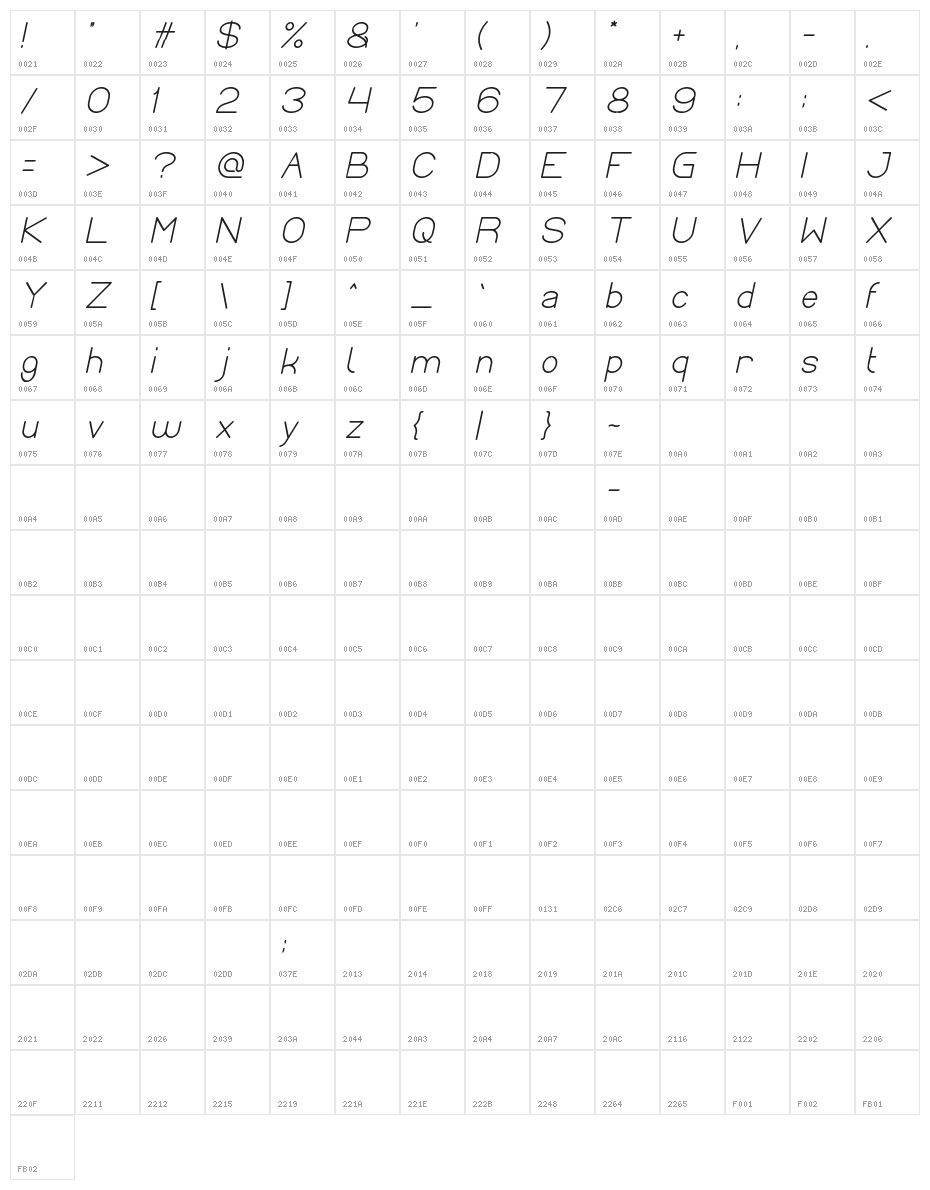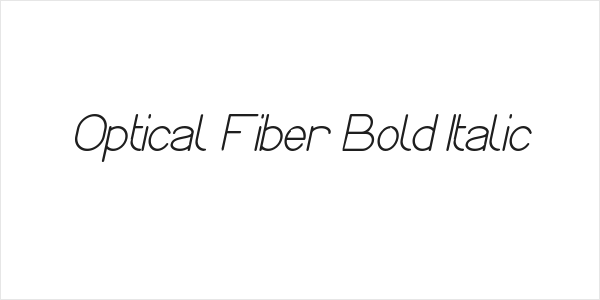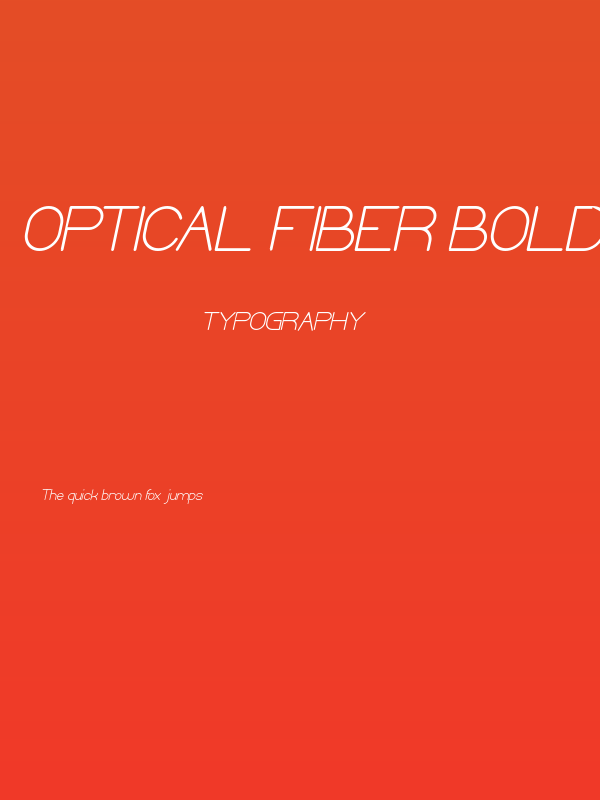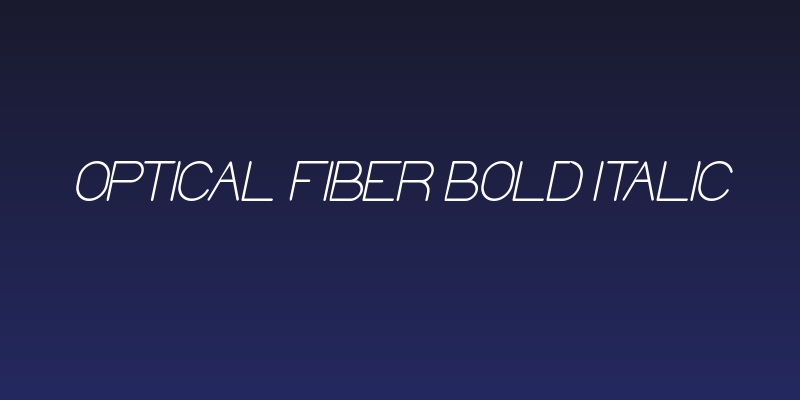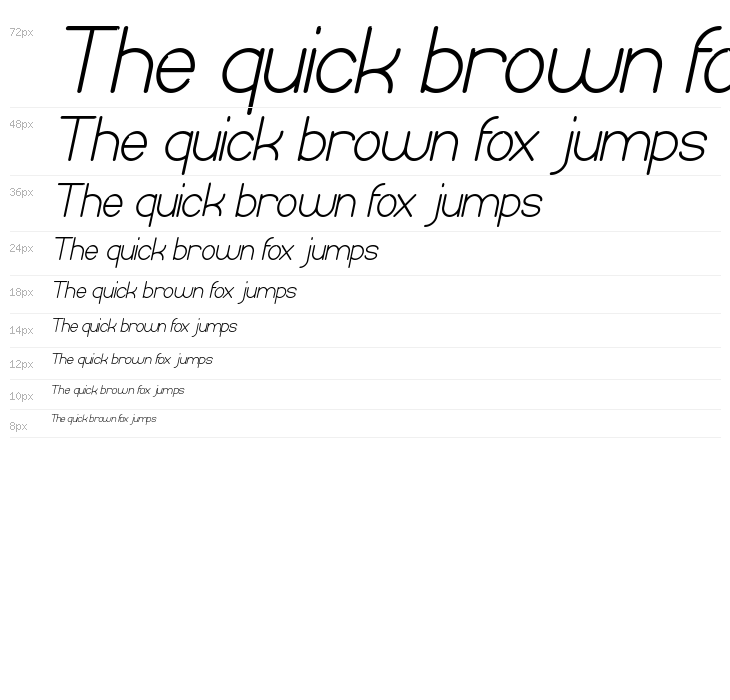
Optical Fiber Bold Italic Font
Optical Fiber Bold Italic Description
This font features a sleek, modern design with a distinct italic slant, giving it a dynamic and forward-moving appearance. The characters are crafted with a consistent stroke width, creating a uniform and harmonious look. The uppercase and lowercase letters are well-proportioned, with a slight curvature that adds a touch of elegance. The numerals are clear and easily distinguishable, maintaining the same stylistic elements as the alphabet. Special characters are included, seamlessly integrating with the overall design. The font's style is both contemporary and versatile, making it suitable for a wide range of applications.
| Proposed Projects | Ideal for technology branding, modern advertising, and editorial design. |